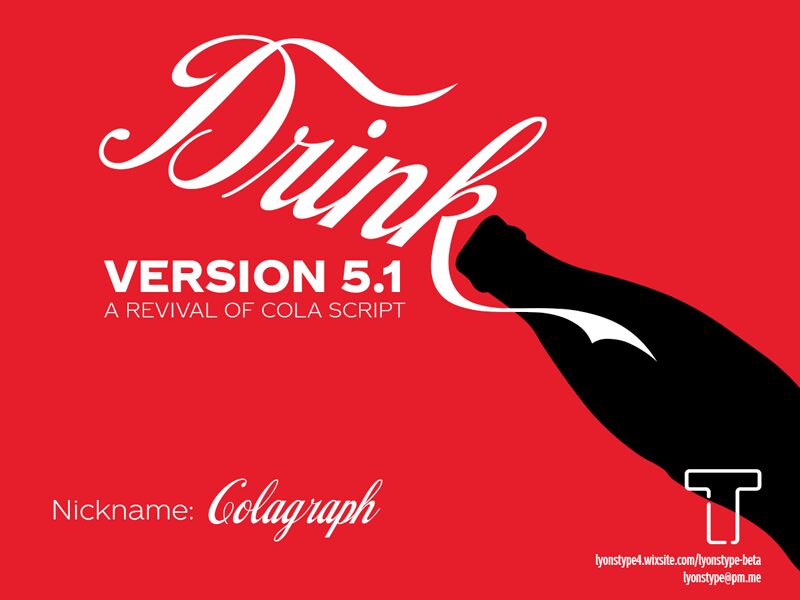
LT Drink Medium font is a quality calligraphy font designed by Daniel P. Lyons of LyonsType.
The font "Drink" can be utilized to make your own personal Coca-Cola parodic logos, such as your name, your studio, as well as the fact it can be utilized for anything in relation to Coca-Cola or anything outside it. The personality of this font appears to be as mentioned in the specimen, "refreshing, hydrating, energizing."
A revival of the Cola Script typeface by Bob Alonso (BA Graphics).